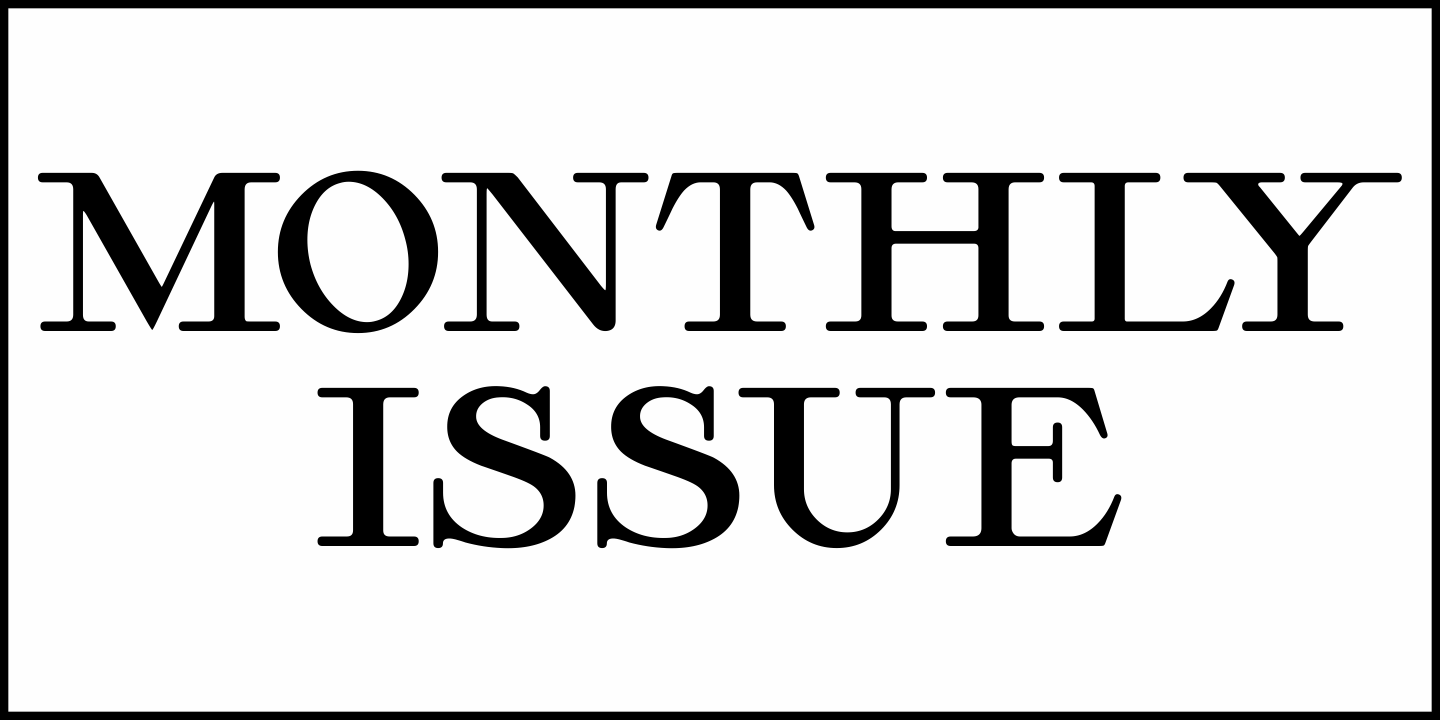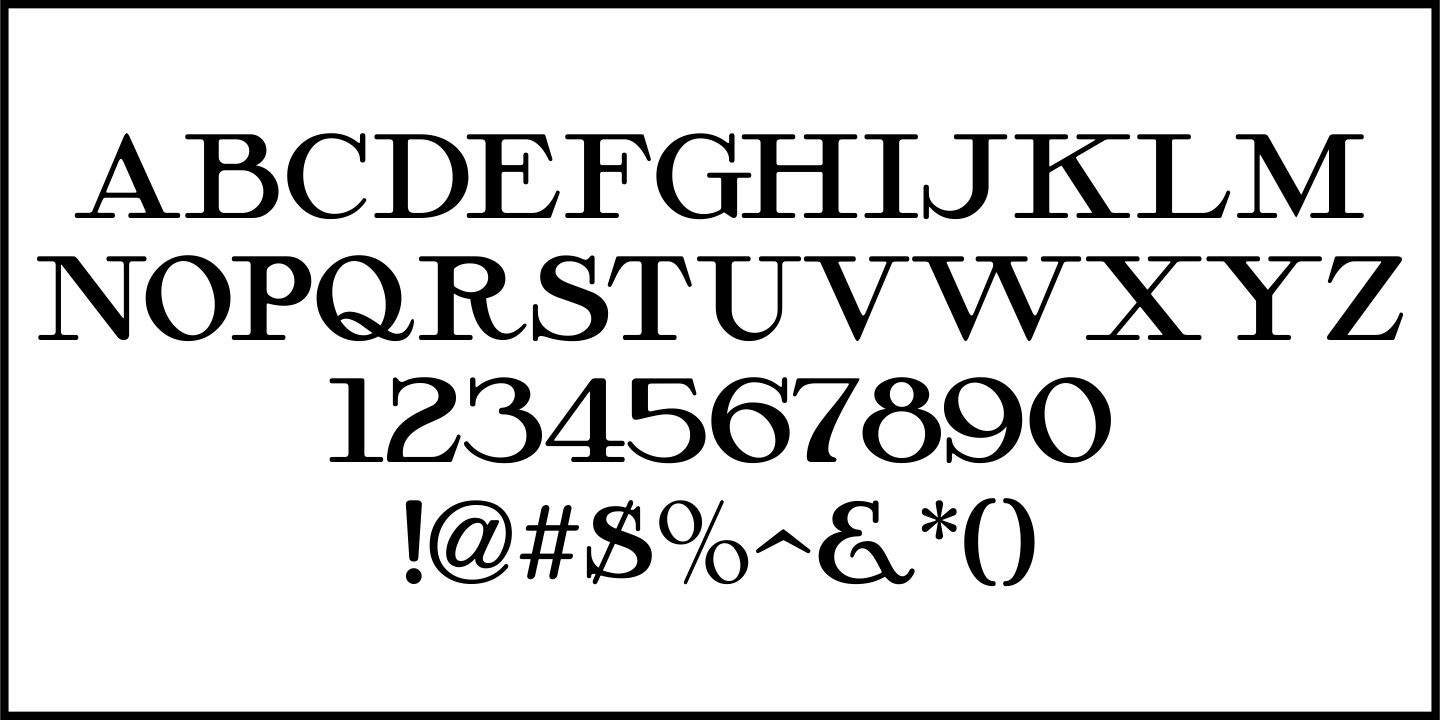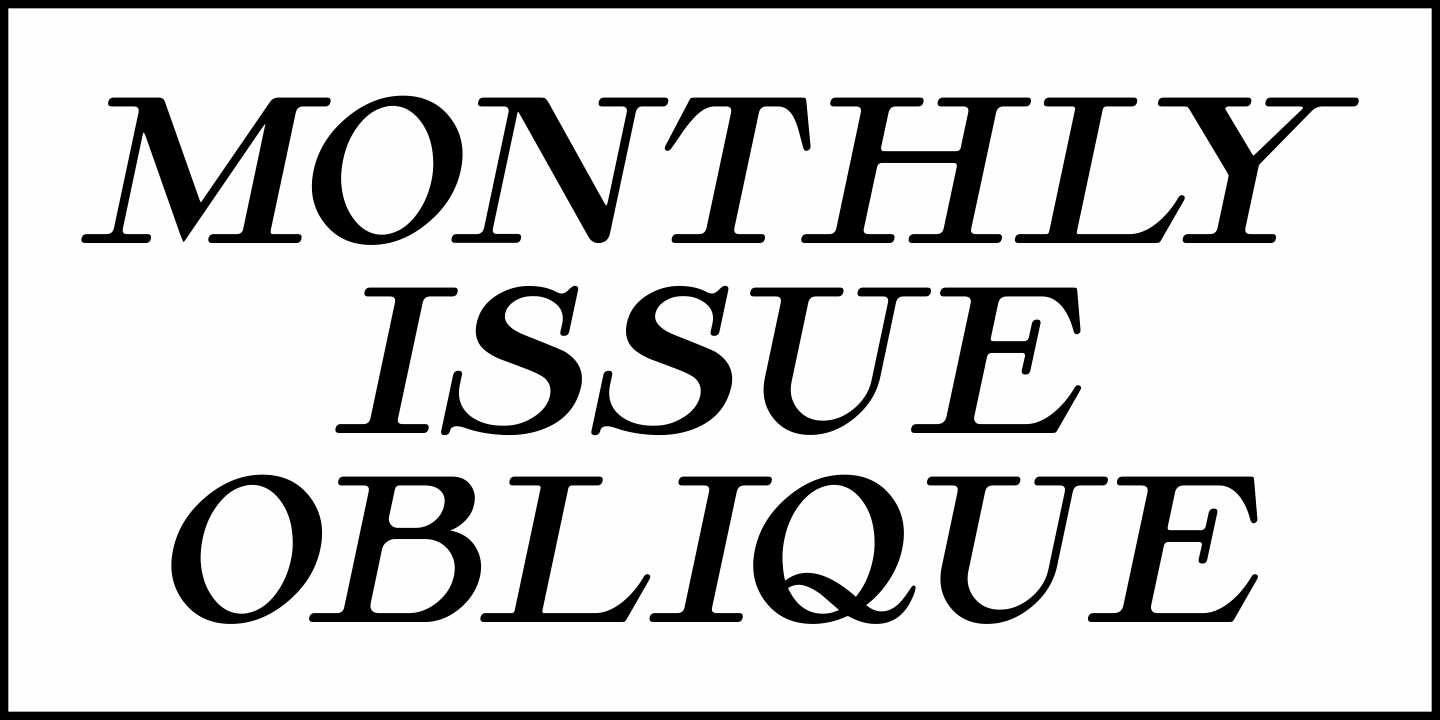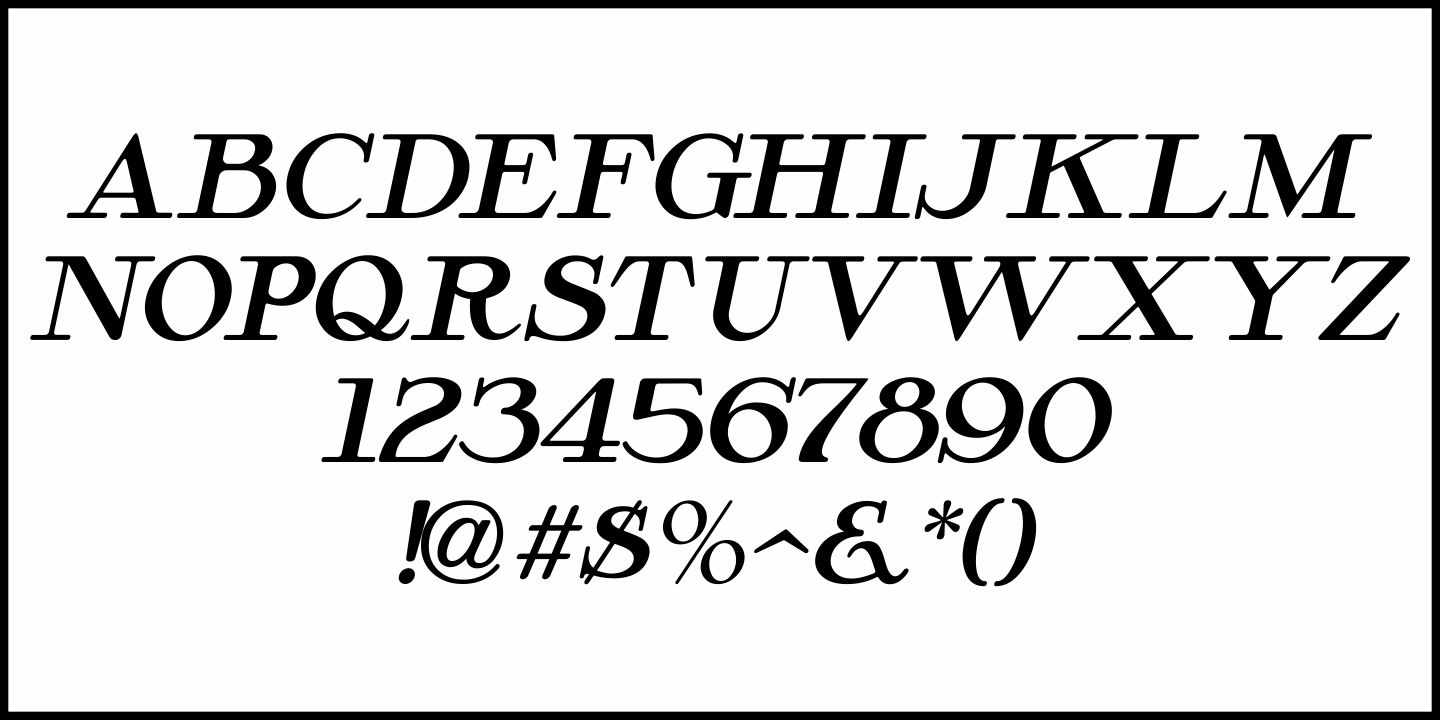
Monthly Issue
An Art Nouveau, hand lettering on a Good Housekeeping magazine cover from the 1920s inspired Monthly Issue JNL, which is available in both regular and oblique versions.
Prior to the 1940s, it was not unusual to find the covers of many popular magazines hand lettered with either their names and/or content information; often in different type styles.
Monthly Issue JNL Regular by Jeff Levine Fonts